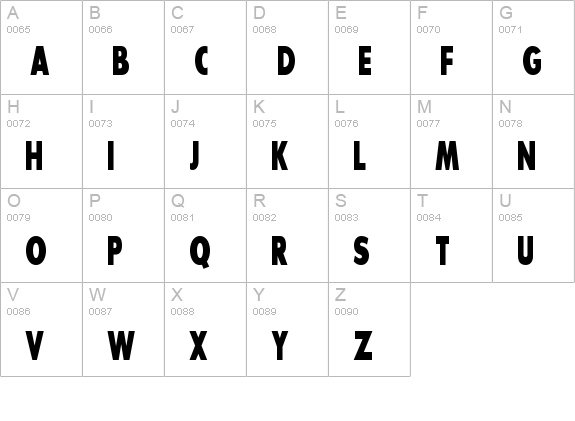
Bougan BlackCondensed SSi Extra Bold Condensed is a strong, high-contrast, condensed-width variant in the Bougan typeface family \xE2\x80\x94 well suited to headlines, attention-grabbing titles, and strong calls-to-action.
Bougan BlackCondensed SSi Extra Bold Condensed font is a striking and impactful typeface that exudes modernity and power. Its bold and condensed design makes it ideal for headlines, titles, and other display purposes where you want to make a strong impression. The sharp edges and sleek lines of this font give it a contemporary and edgy look that is sure to grab attention. What sets Bougan BlackCondensed SSi apart is that it is available for free download at FontsMarket.com. This means that you can easily access this high-quality font without any cost, making it a valuable addition to your design toolkit. Whether you're working on a poster, flyer, website, or any other project that requires a bold and attention-grabbing typeface, Bougan BlackCondensed SSi is sure to deliver the impact you're looking for. Download it today and elevate your designs with this powerful font.